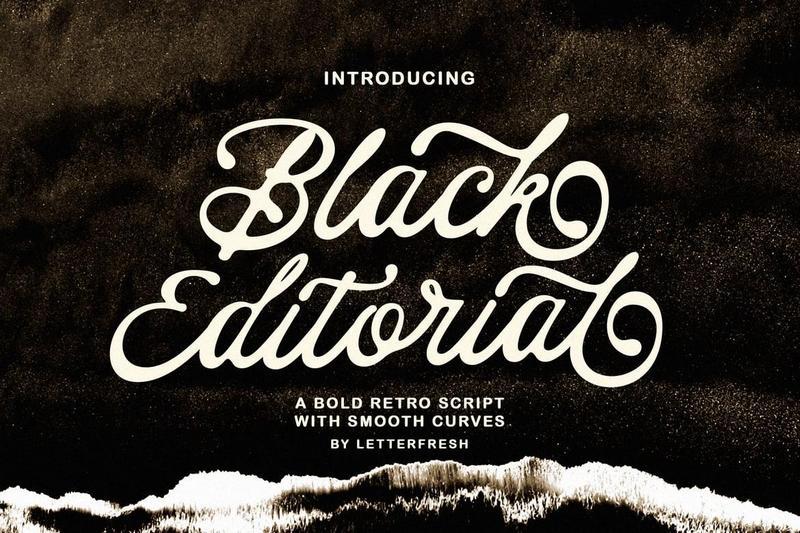
Black Editorial Script DNJBTED
Black Editorial Script Inspired by Modern Vintage & Retro styles and a combination with old American traditional style.
Black Editorial Script allows you to create handwritten letters instantly and very practically. Ideal for logos, handwritten quotes, product packaging, headers, posters, merchandise, social media & greeting cards.